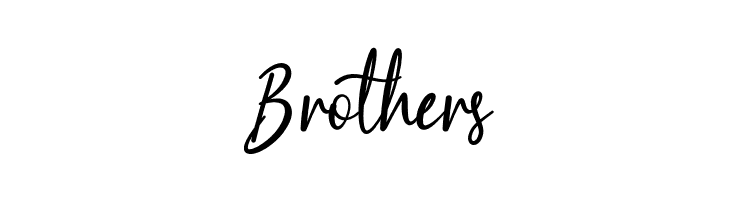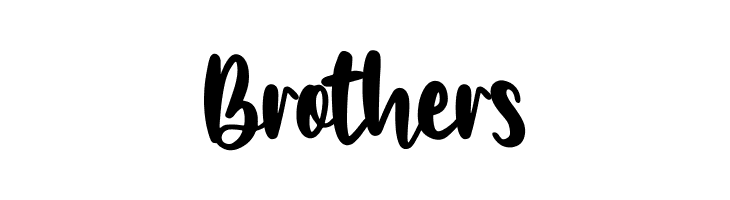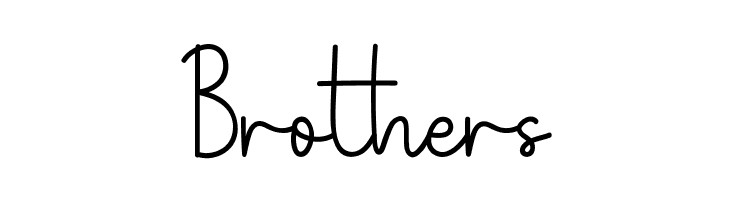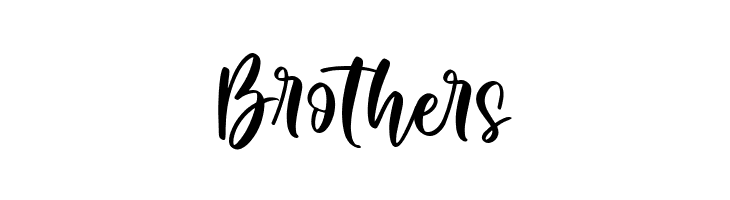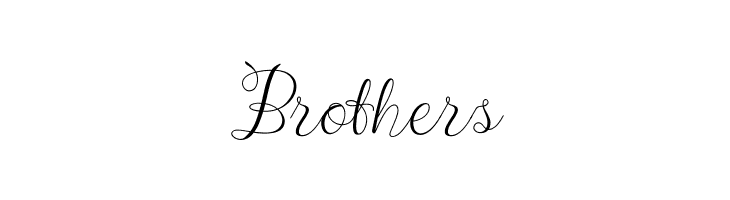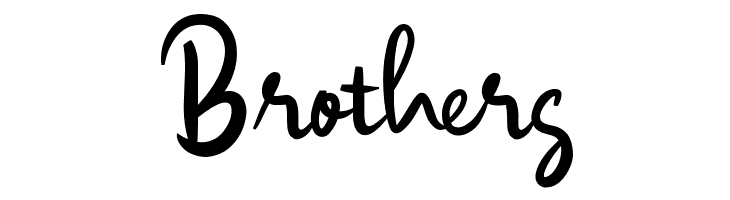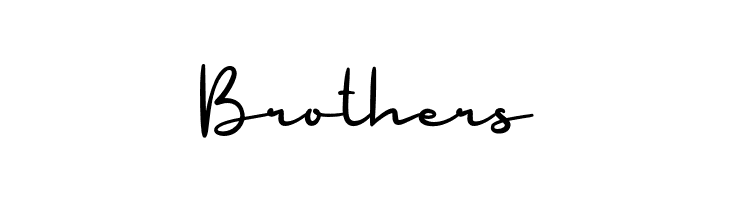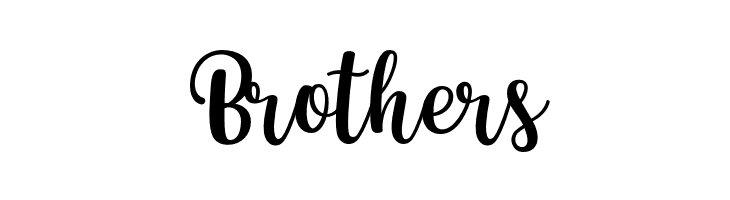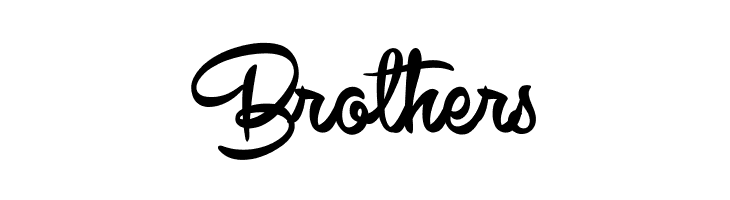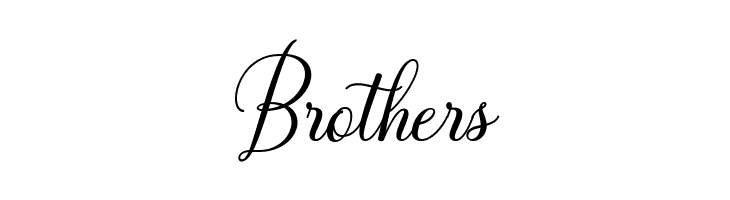
A bold, rough script font with a hand-drawn, brush-like texture.
A dynamic, brush-stroke font with an artistic and expressive style.
A bold, brushstroke-inspired font with an artistic and expressive style.
A playful and whimsical script font with decorative loops and swirls.
A playful and whimsical script font with decorative swirls and a hand-drawn feel.
An elegant, high-contrast script font with flowing, cursive strokes.
A playful, wavy font with bold, irregular strokes and a whimsical style.
An elegant script font with flowing, interconnected letters and delicate flourishes.
A lively and expressive script font with fluid strokes and dynamic style.
An elegant script font with intricate swirls and flowing connections.
A lively, cursive script font with smooth, flowing strokes and elegant character connections.
A bold, dripping paint-style font with a dynamic and artistic flair.
A playful and whimsical script font with flowing, interconnected letterforms.
A bold, distressed font with a grunge, hand-painted style.
A bold, expressive script font with a playful, handwritten style.
A graceful script font with flowing, connected strokes and a sophisticated style.
A flowing, elegant cursive script with consistent stroke width.
An elegant script font with flowing, interconnected characters and refined flourishes.
A bold, hand-painted style font with an artistic, brush-stroke appearance.
A bold, expressive script font with dynamic curves and a modern style.
A lively and expressive script font with dynamic, fluid strokes.
A flowing, elegant script font with smooth curves and stylish flourishes.
A lively handwritten script font with fluid, connected strokes.
A flowing, cursive script with elegant loops and swashes.
A lively, expressive script font with bold, cursive strokes and playful loops.
A graceful and elegant script font with flowing lines and decorative curves.